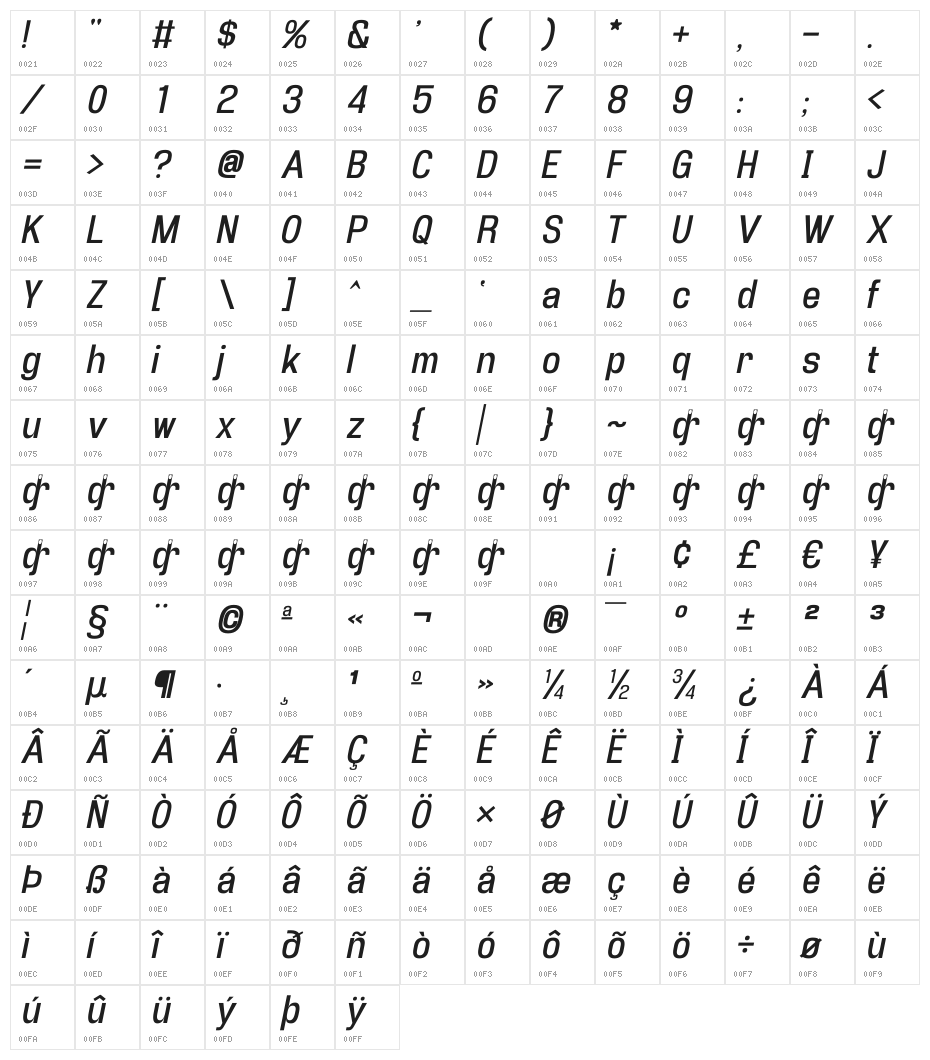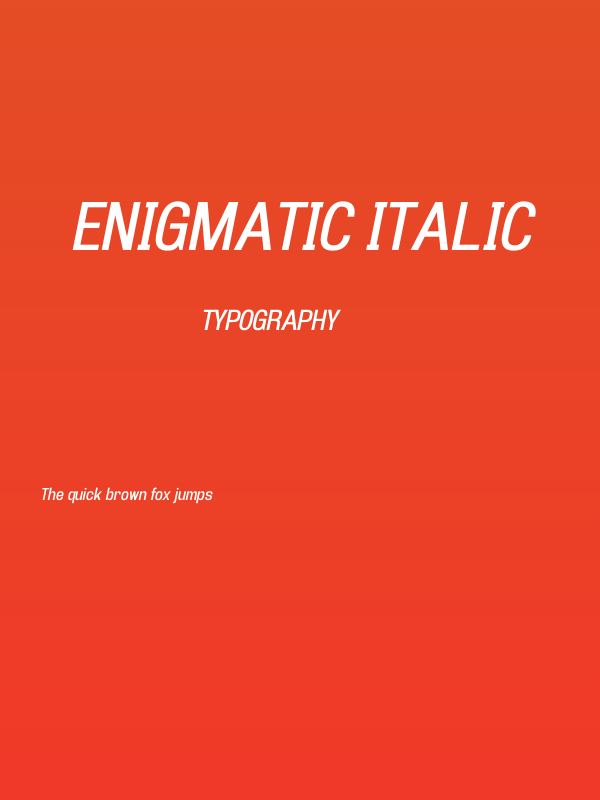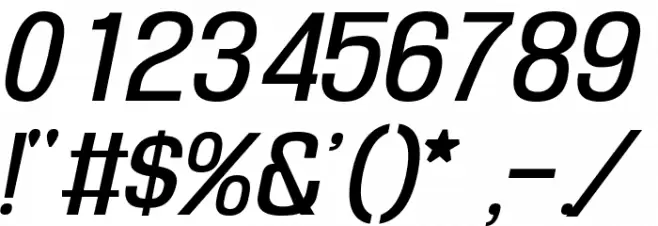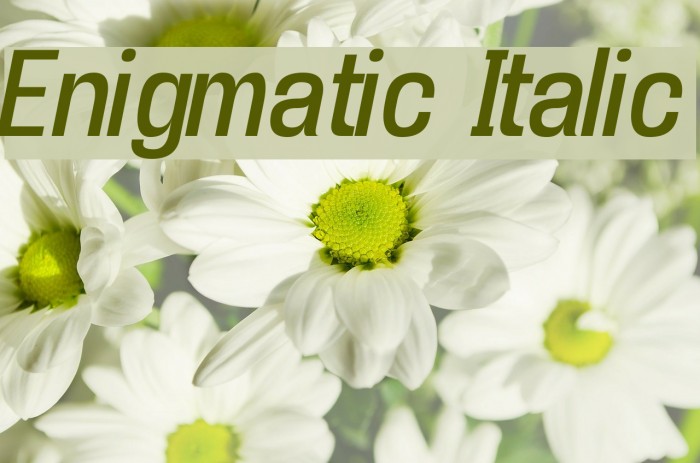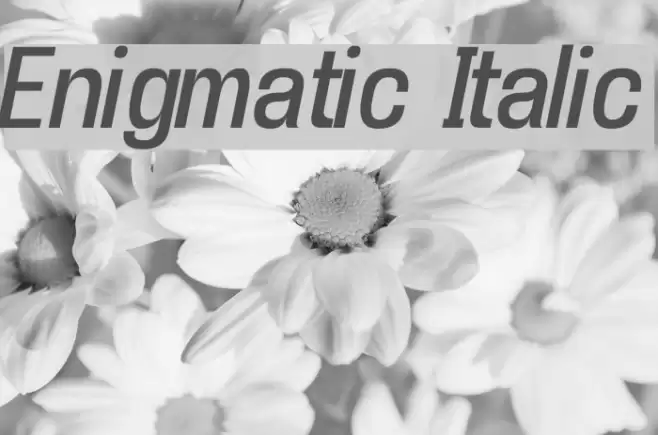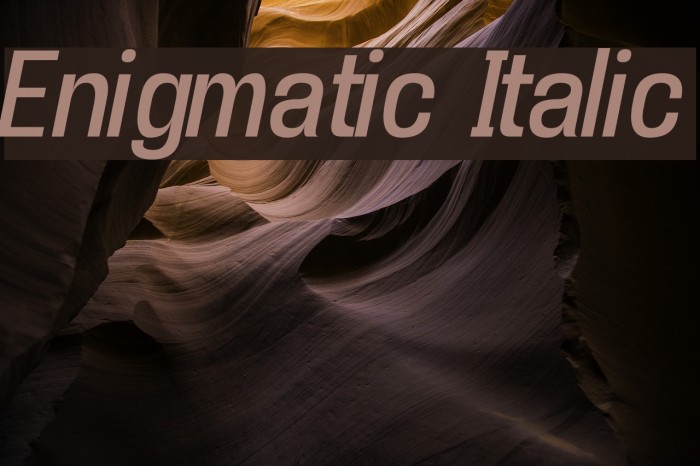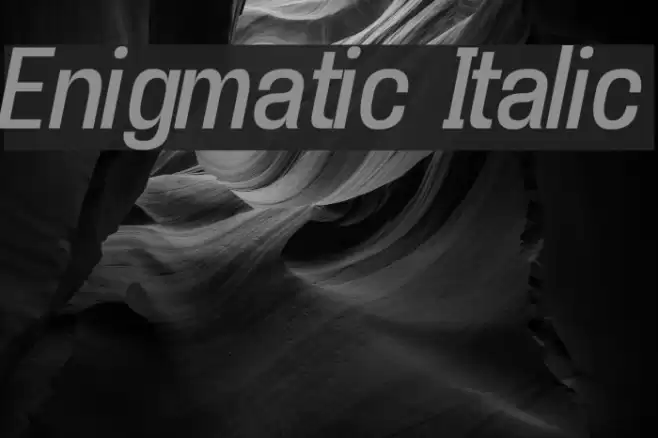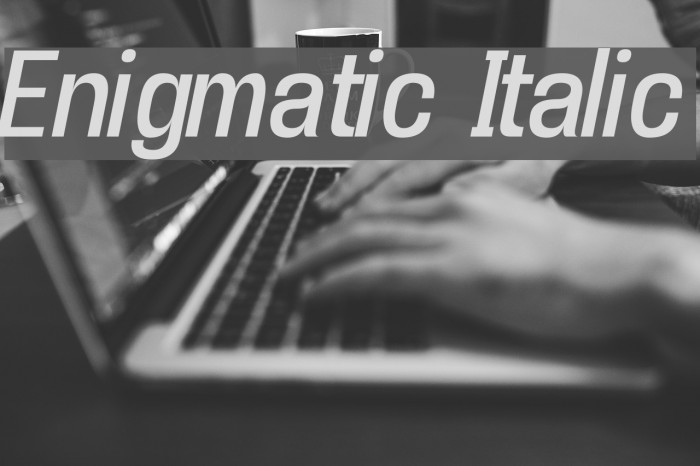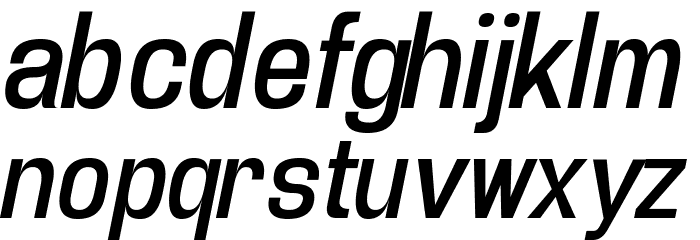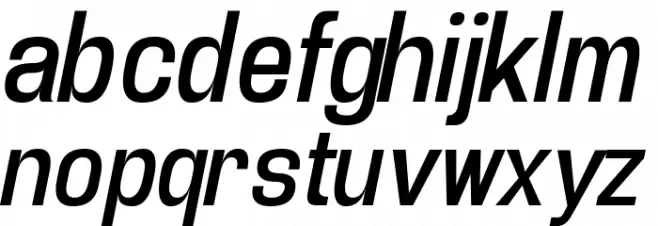
Enigmatic Italic Font
Enigmatic Italic Description
This font exhibits a sleek and modern design with a distinct italic slant, giving it a sense of motion and dynamism. The characters are uniformly styled with clean lines and a consistent stroke width, providing a harmonious and balanced appearance. The uppercase and lowercase letters maintain a cohesive look, while the numerals and special characters are crafted to match the overall aesthetic. The font's design is both functional and stylish, making it suitable for a variety of applications where a contemporary and professional look is desired.
| Proposed Projects | Ideal for branding, advertising, and editorial design projects where a modern and dynamic appearance is needed. |